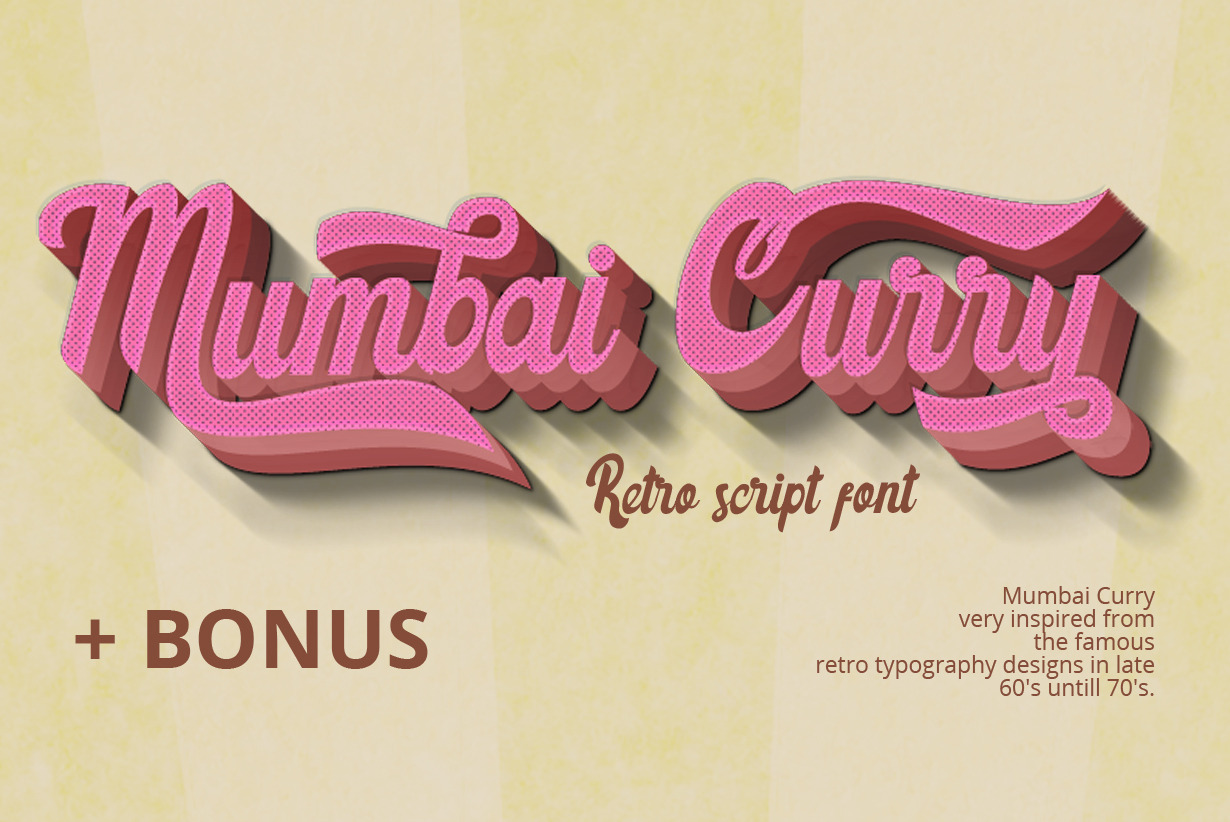
Mumbai Groovy Retro Font + BONUS
Mumbai Retro Vintage Font
So what makes a font "vintage?" Each era in design is classified according to subtle and unique details. The Art Deco era, for example, includes extraordinary geometric elements and clean sans-serif fonts. So vintage fonts include many designs from the retro era, and often look weathered to emphasize their eye-catching vintages.
Now you can give your typography design with a touch of retro style with Mumbai Retro Vintage Font. Mumbai Retro Vintage Font was very inspired from the famous retro typography designs in late 60's untill 70's. Mumbai Retro Vintage Font also comes with extra Extruded Font version. So you won't need extra effort for create an extrude effect for this font. This mean it will saves your time.
Mumbai Retro Vintage Font are great for Retro Vintage type projects and convey a sense of what’s to come.